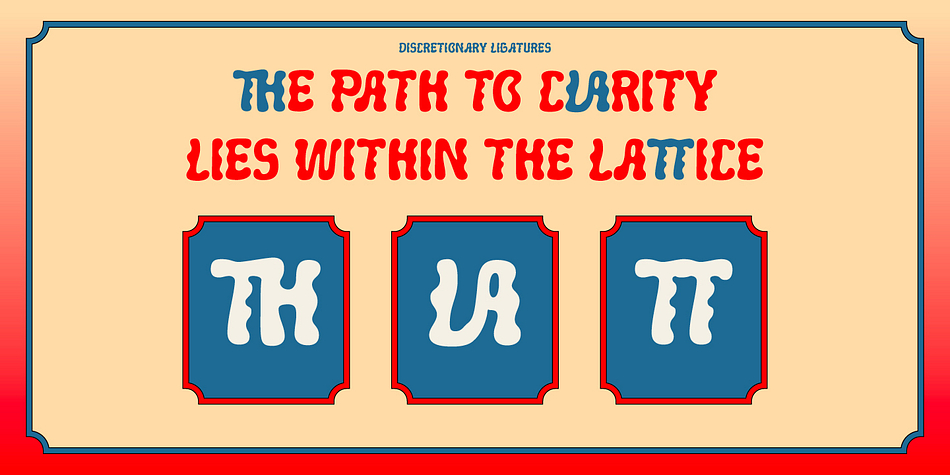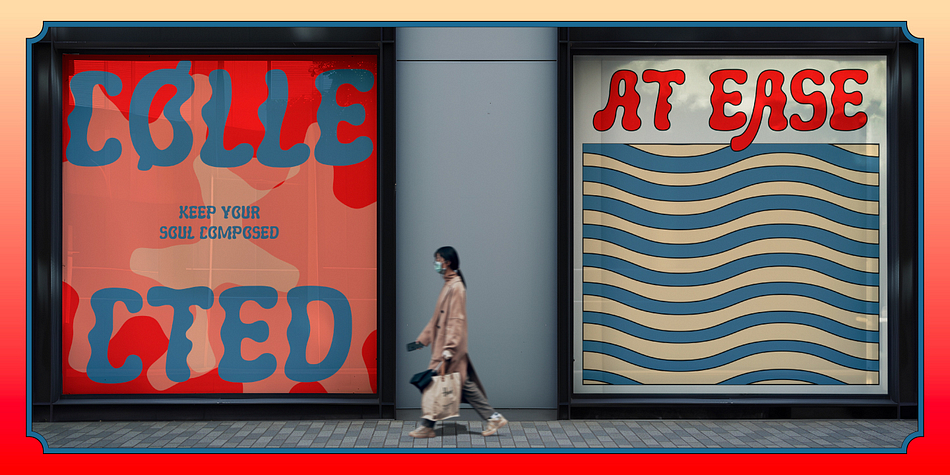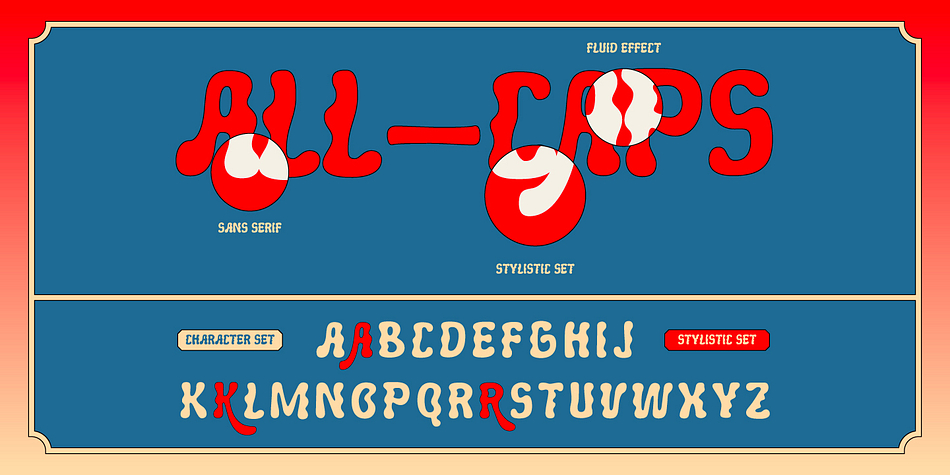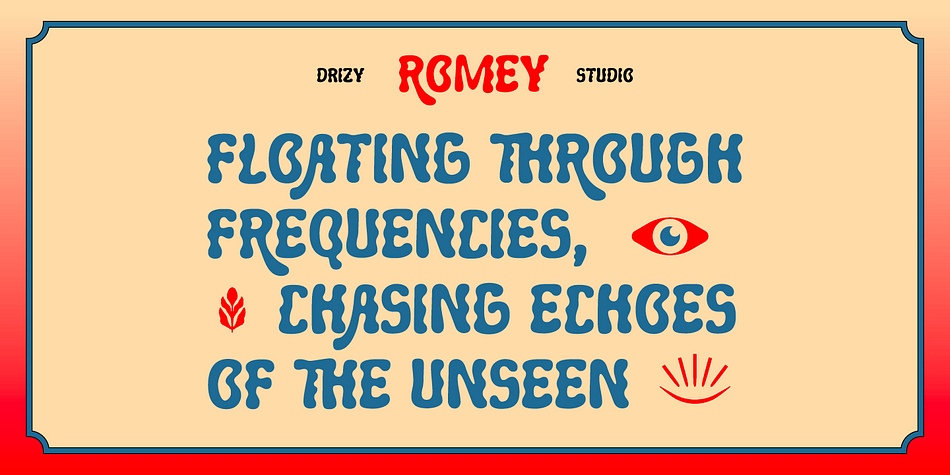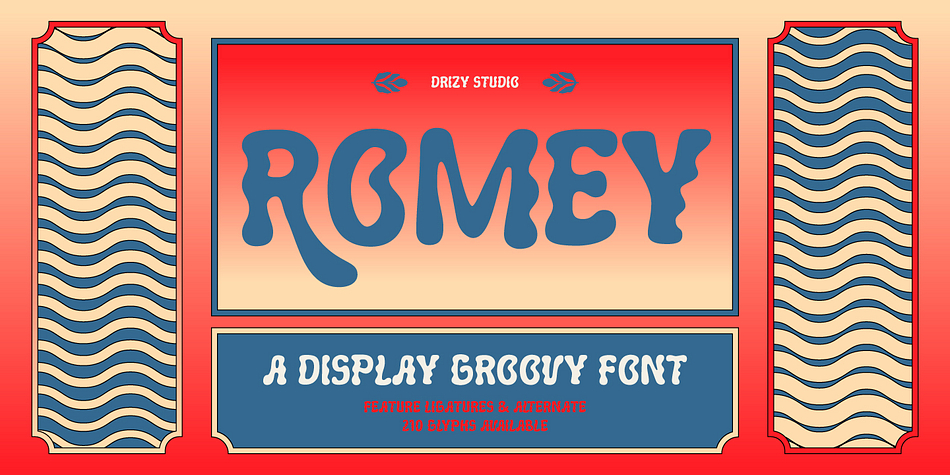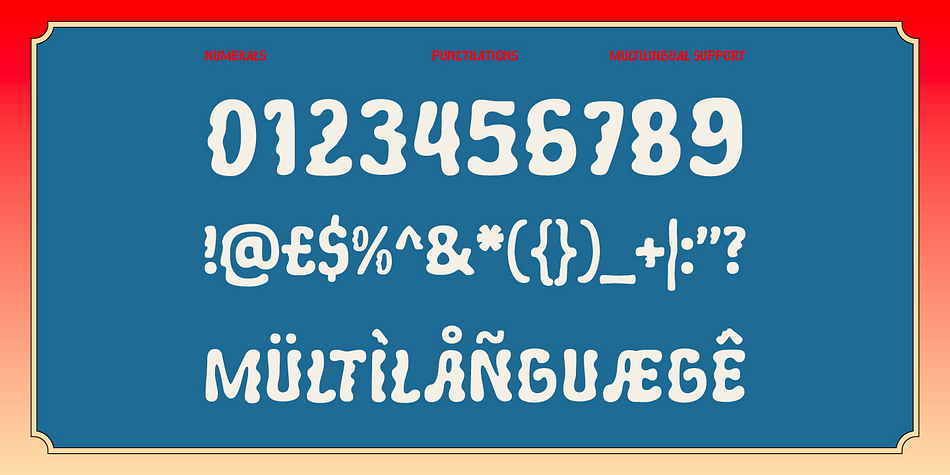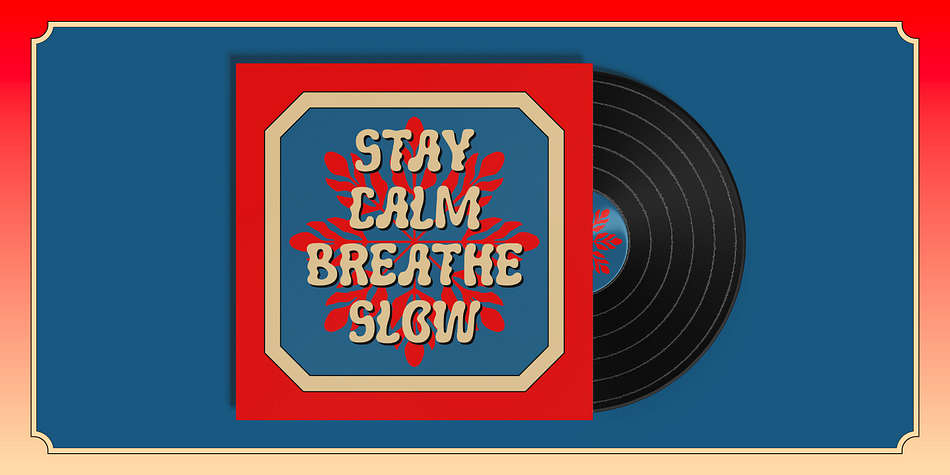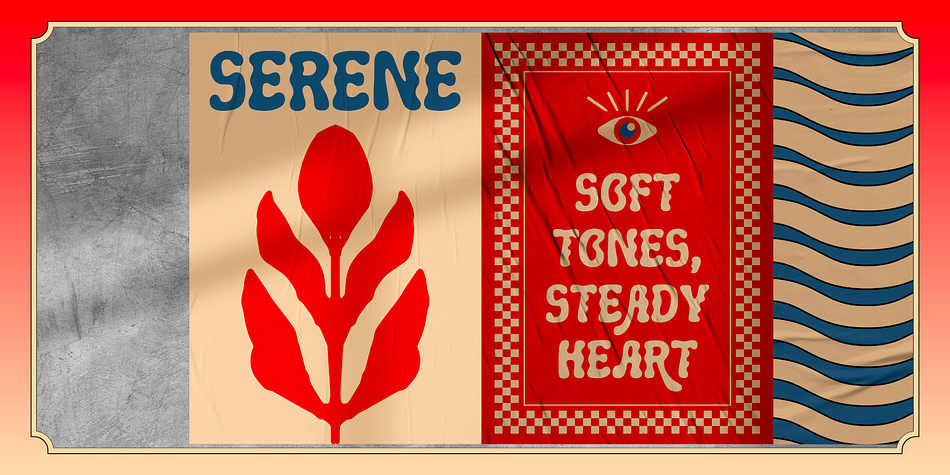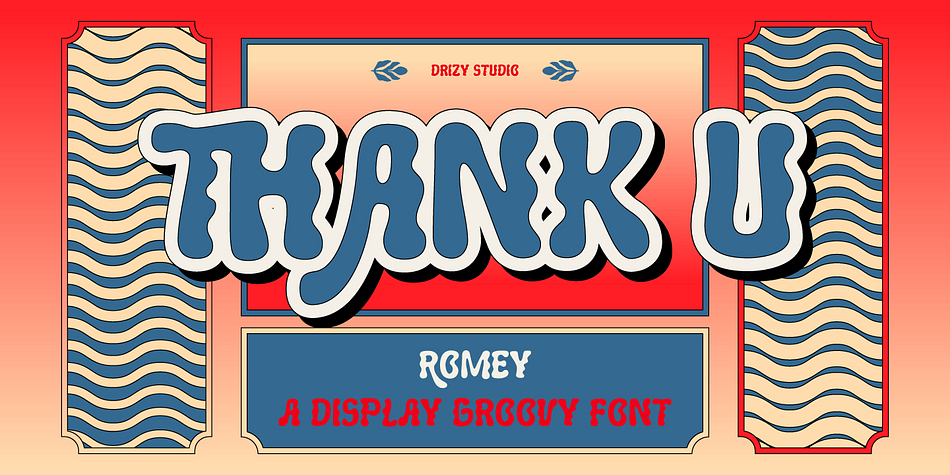
Romey
Designed by Panca Ahmadi Hasan, Romey is a display sans font family published by Drizy Font.
Romey – Display Groovy Font
Romey Display Groovy is a playful typeface that flows with the effortless energy of liquid motion. A proud member of the Fluid Dynamics font, Romey channels a retro spirit while embracing the organic curves and smooth transitions that define this dynamic style. Each letter dances with personality bulging forms, sweeping terminals, and a rhythm that mimics the movement of waves, lava lamps, or ink in water. Romey strikes a balance between vintage aesthetics and modern flair. It doesn’t just communicate it grooves.
Romey – Display Groovy Font features:
- Character Set (All Caps)
- Numbers & Punctuation
- Alternate